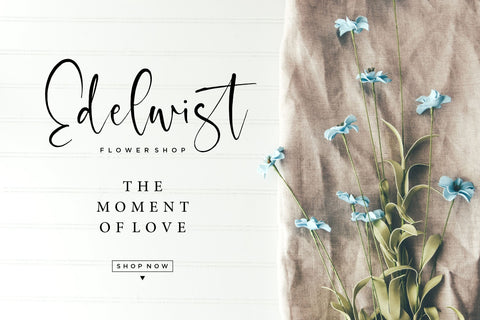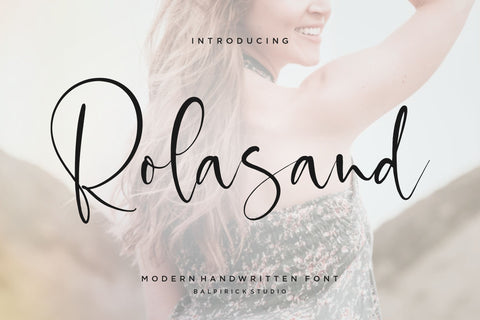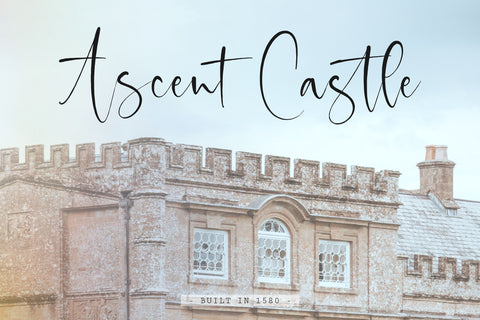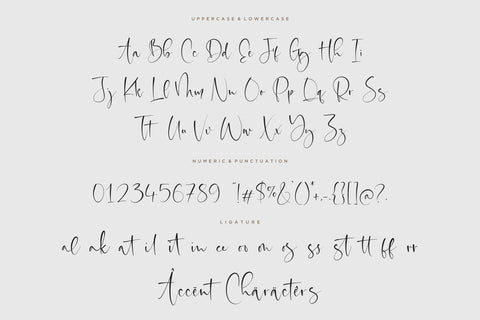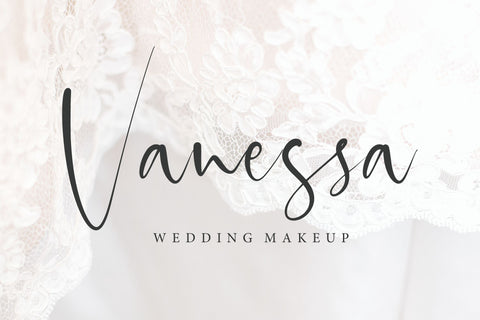
Rolasand Modern Handwritten Font
Proudly Present, Rolasand Font.
Rolasand is a Modern Handwritten Font.
Rolasand is perfect for product packaging, branding project, megazine, social media, wedding, or just used to express words above the background.